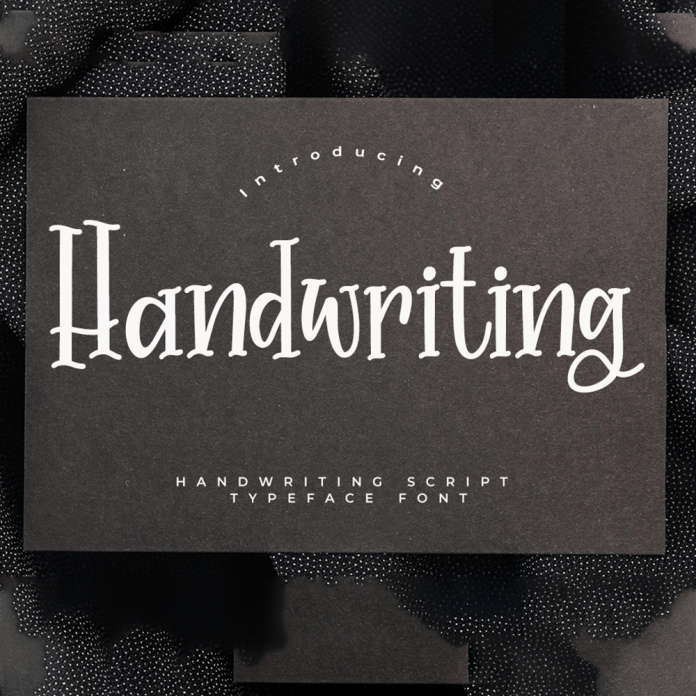
Handwriting font is a unique and artistic brush font that mimics the look of natural handwriting. Its key features include fluid strokes, organic shapes, and a casual yet elegant style. This font is perfect for adding a personal touch to invitations, greeting cards, logos, and other design projects.